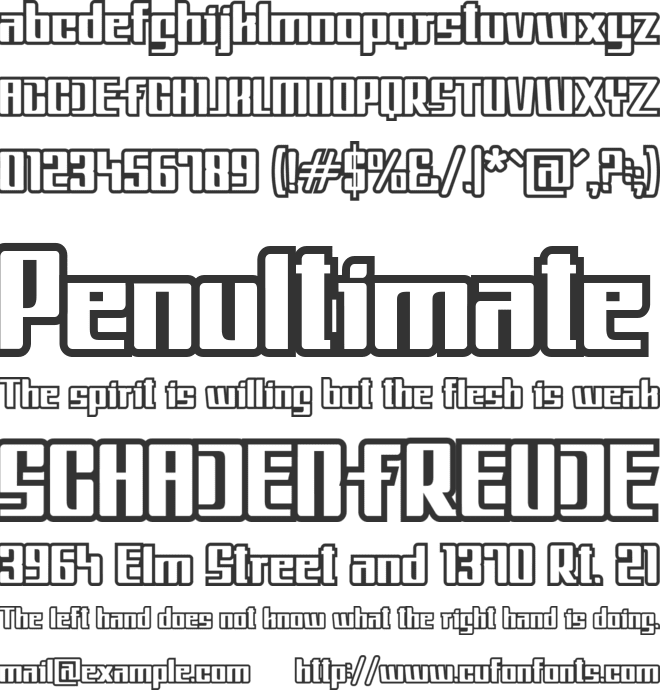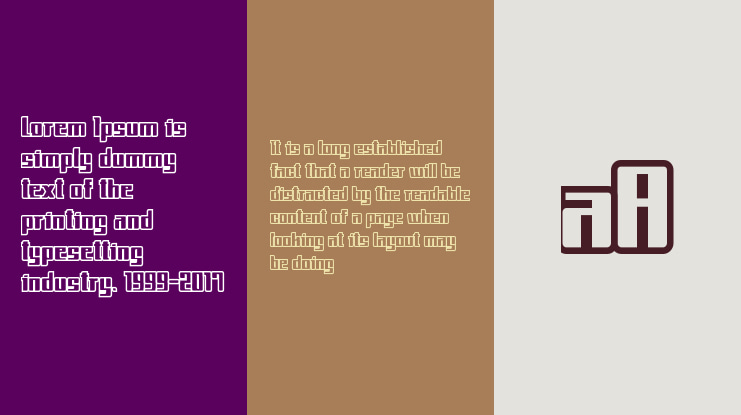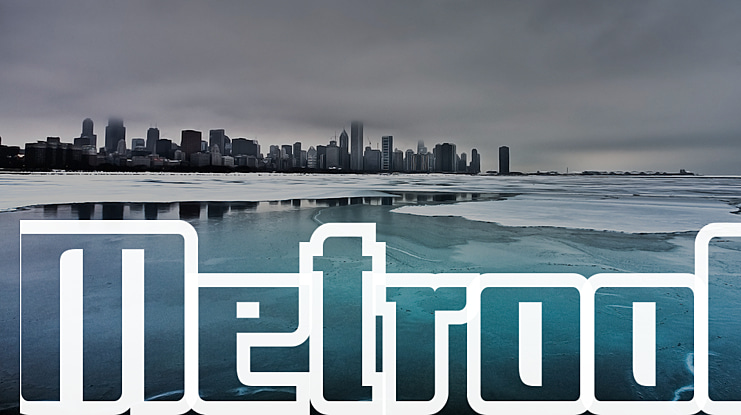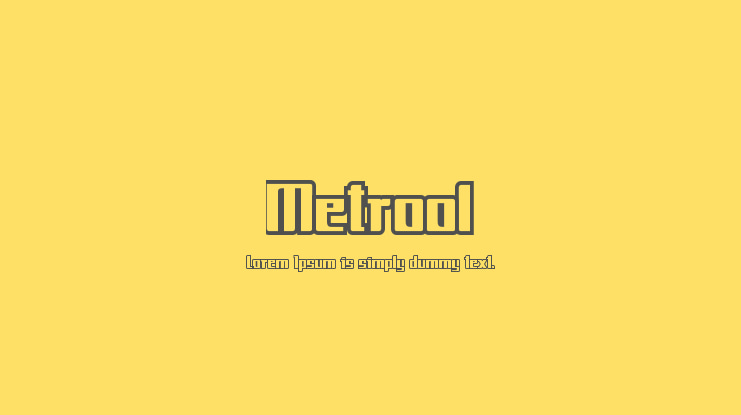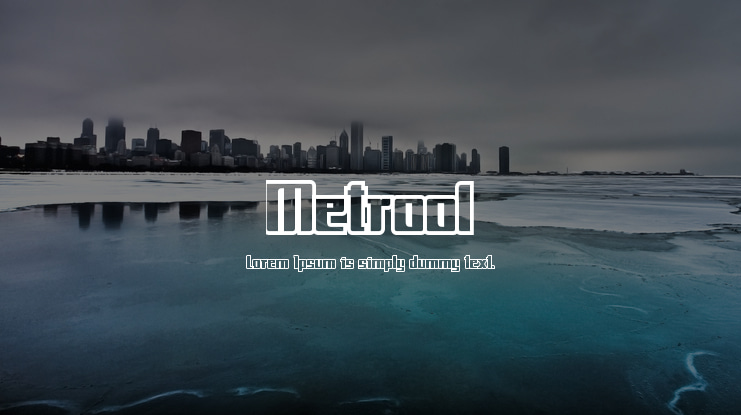
Metrool Font
Introduce, this is our newest product, we give it a name
This product is Metrool Font.
Metrool is fun and bold display font with a sporty feel.
It will turn any design project into an eye catcher!
Metrool fonts are very good to use on:
Posters, Shirt Numbers, Boxes, and Product Logo Creations.